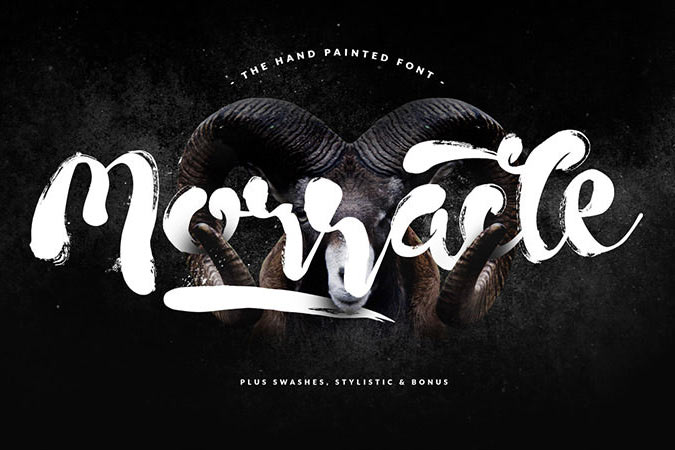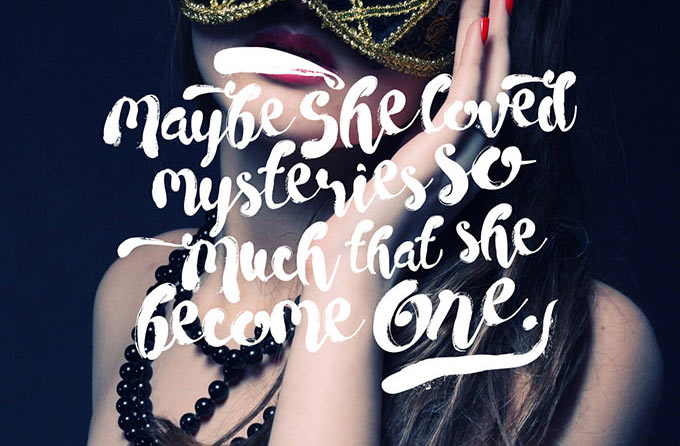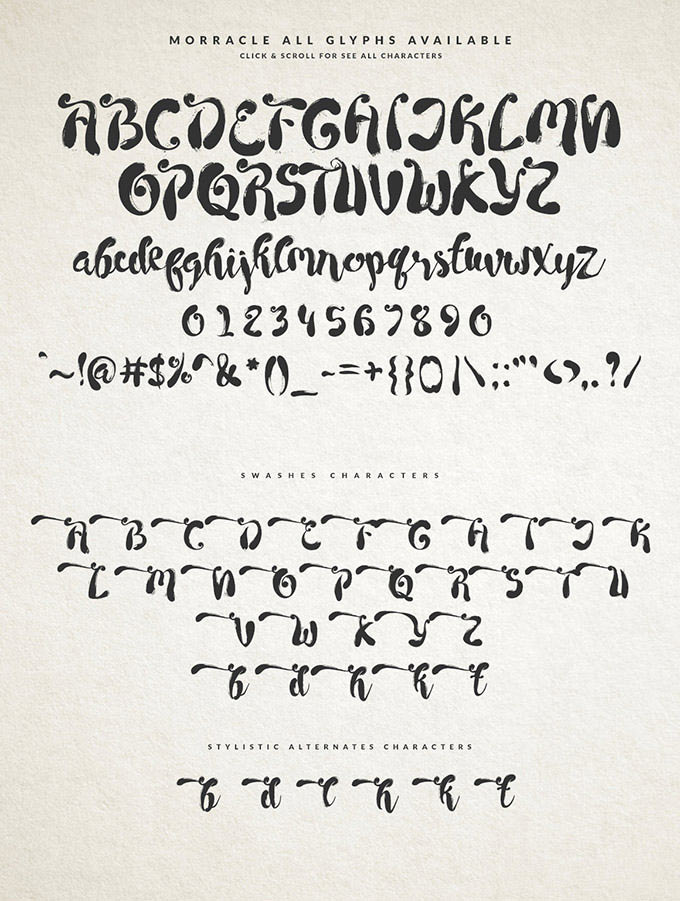
Inspired by the ink & tints hand drawing, Morracle is an incredible font that is available for free! Besides the font, the designer also throw in tones of alternate glyphs and extra vectors which you can use with the font. You can use this font to create stylish, hippy designs.
- Designer: Maulana Creative